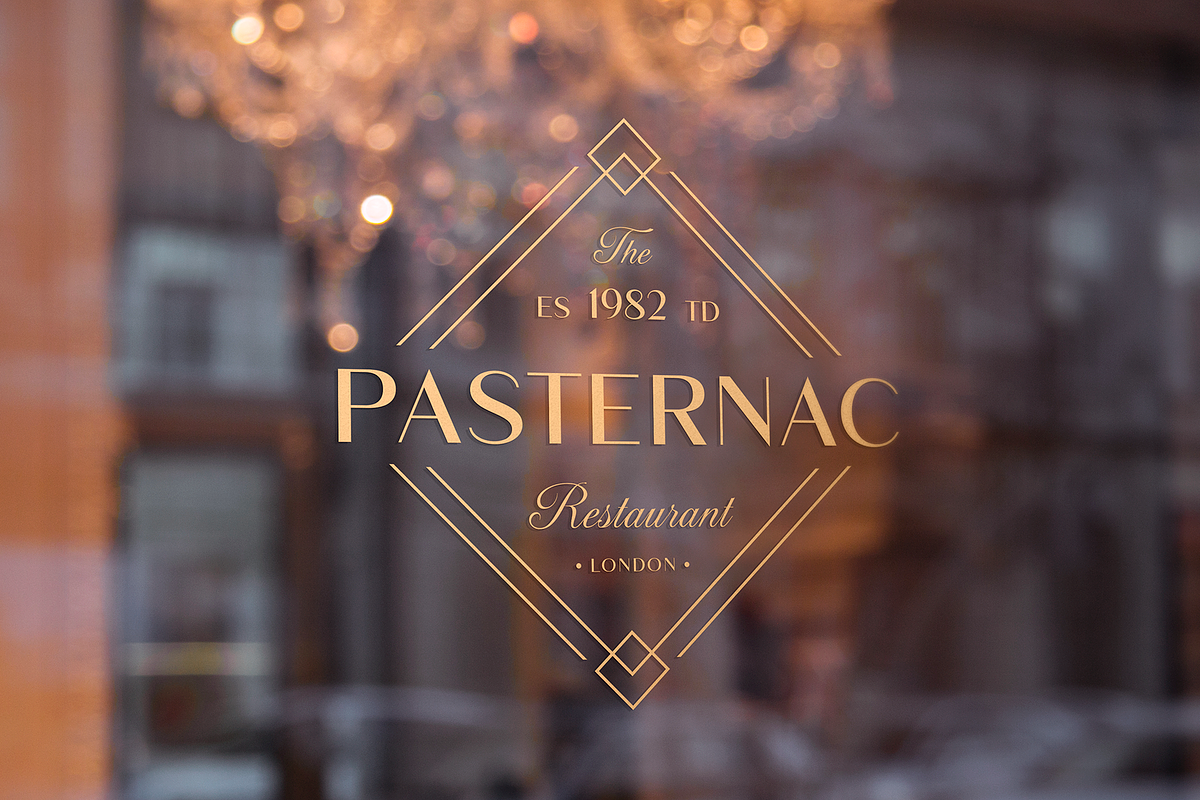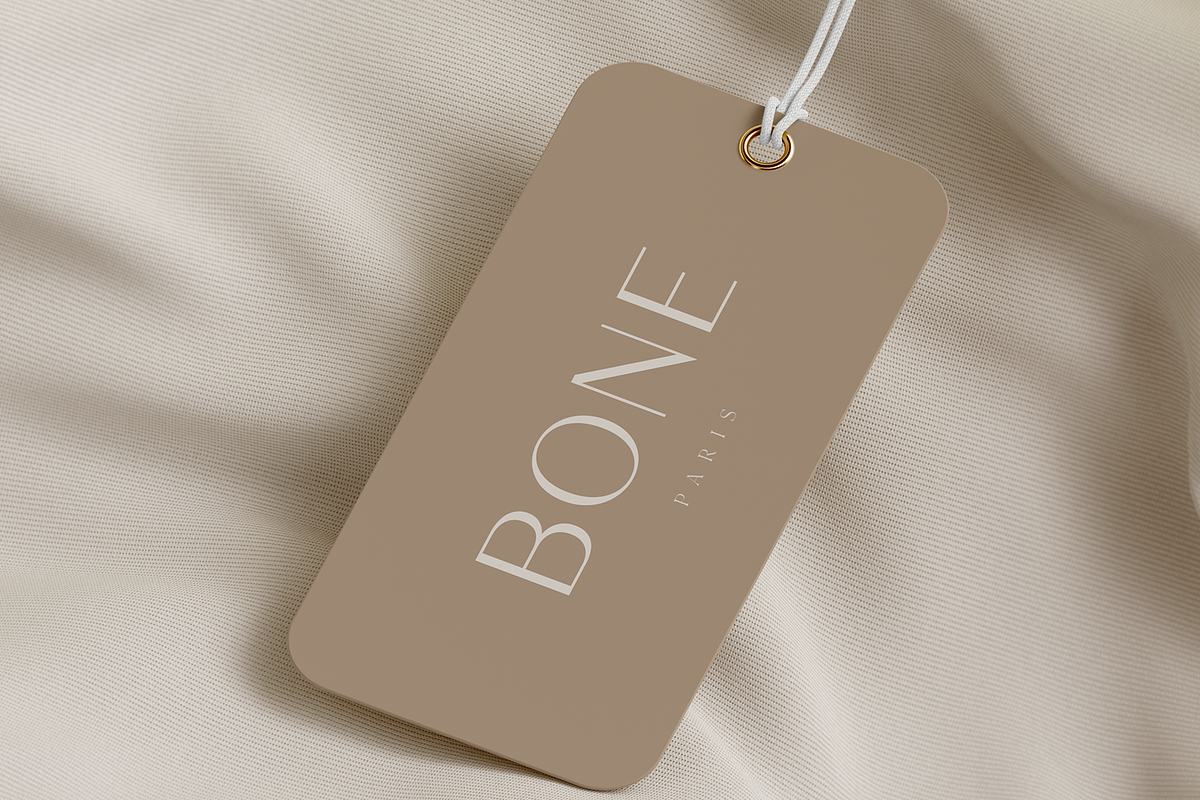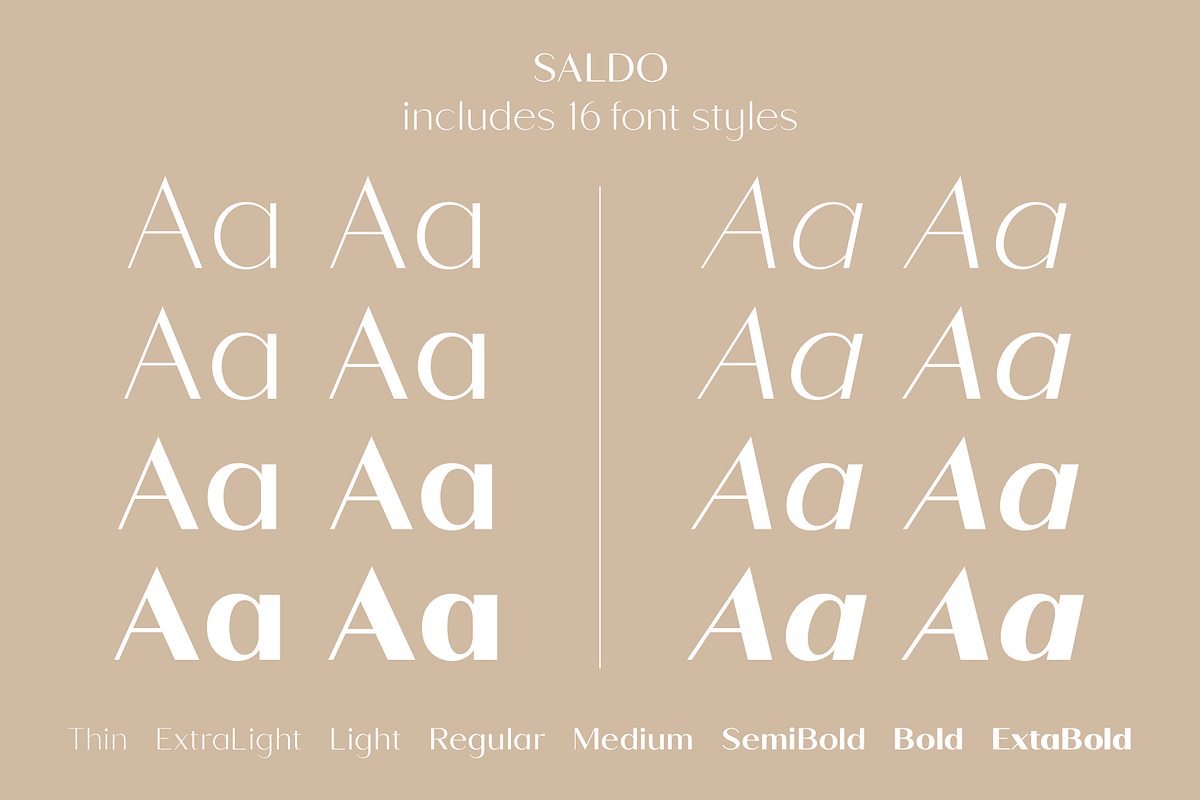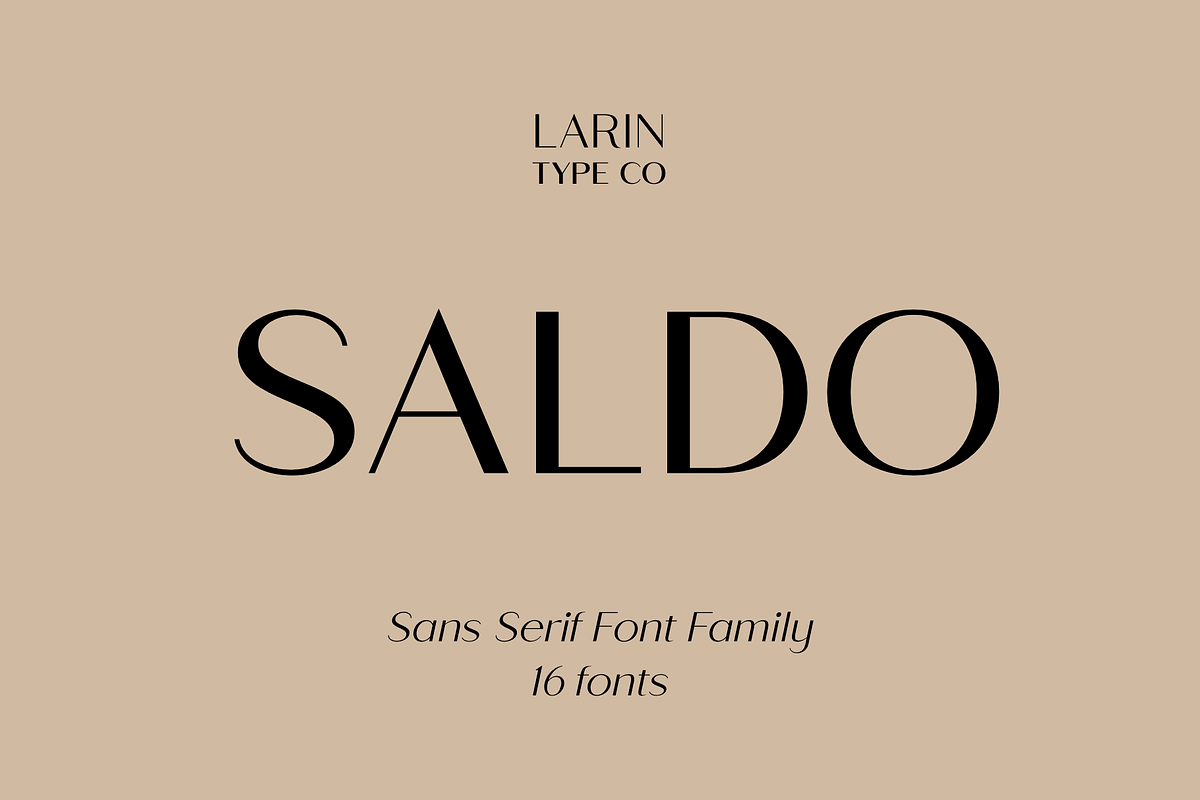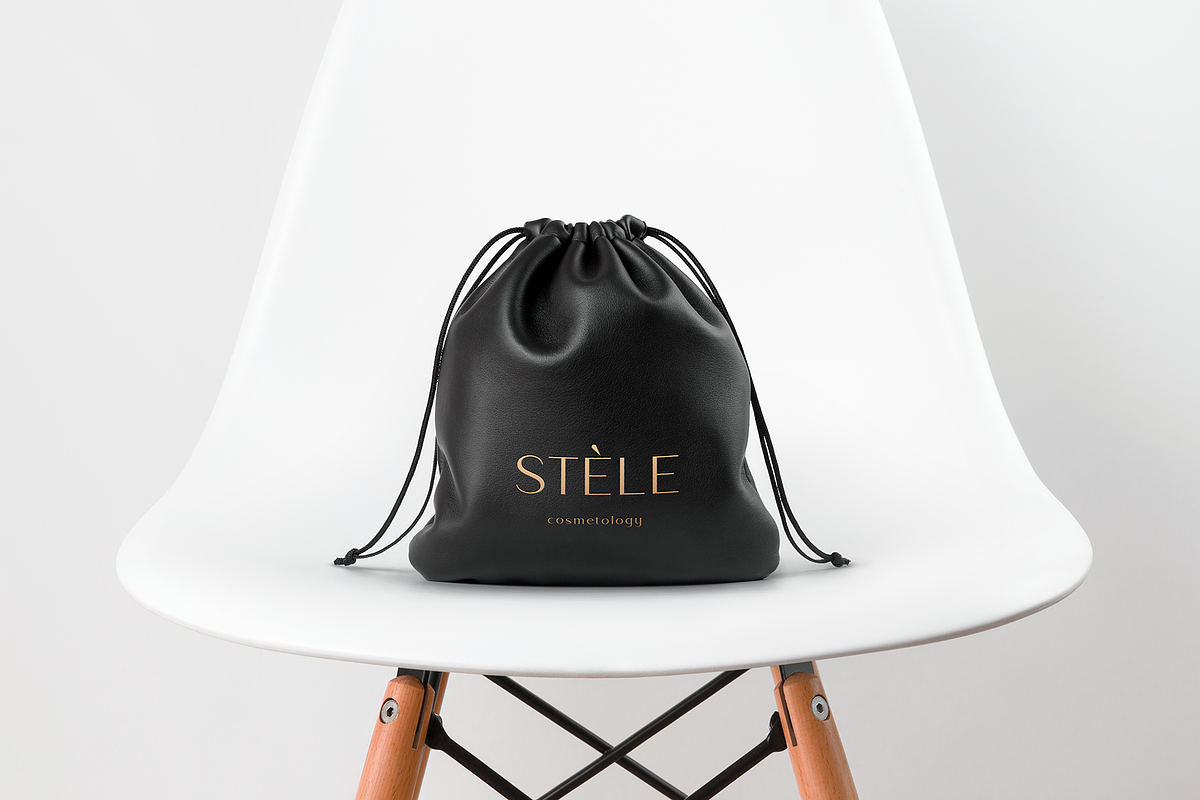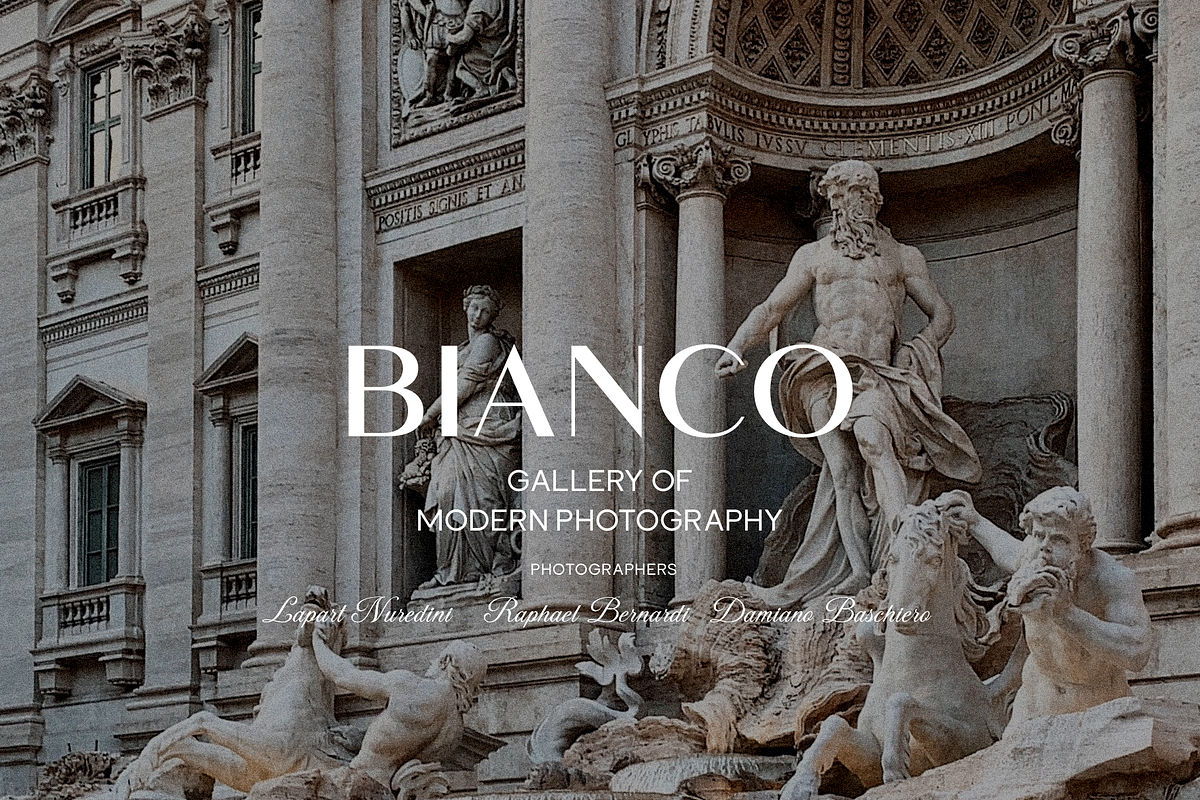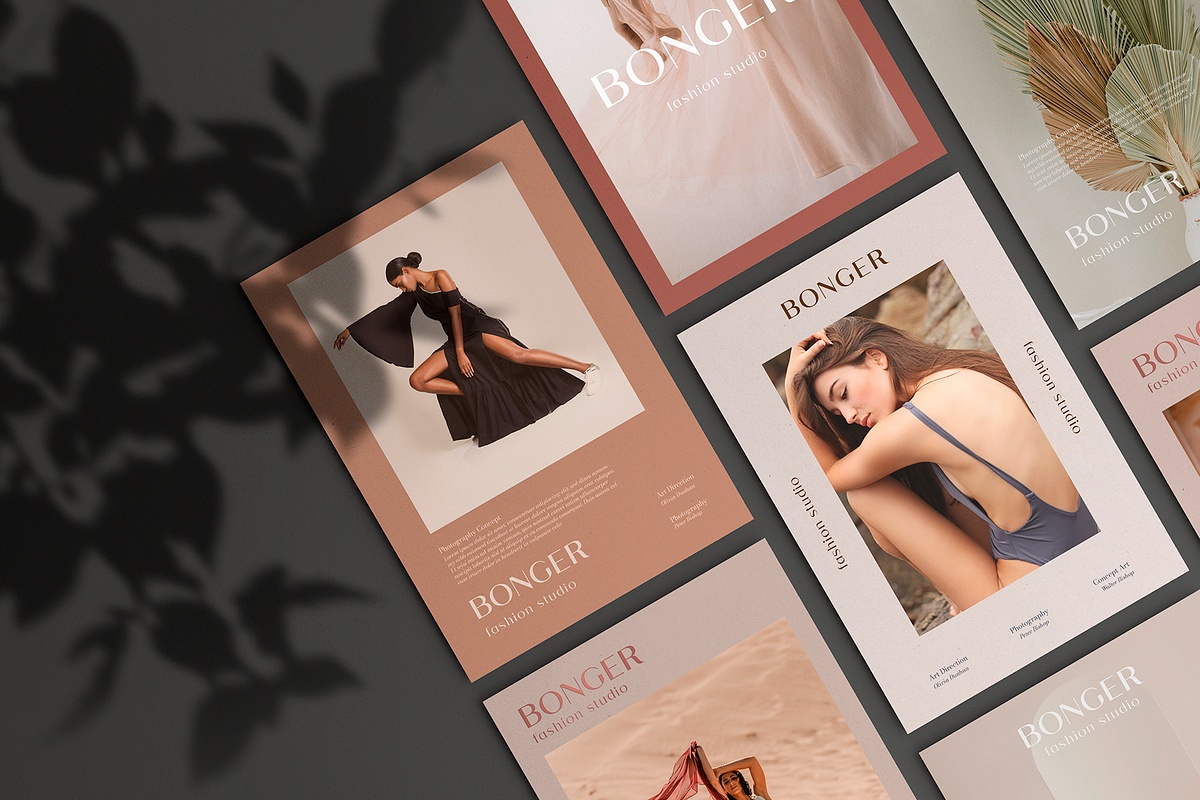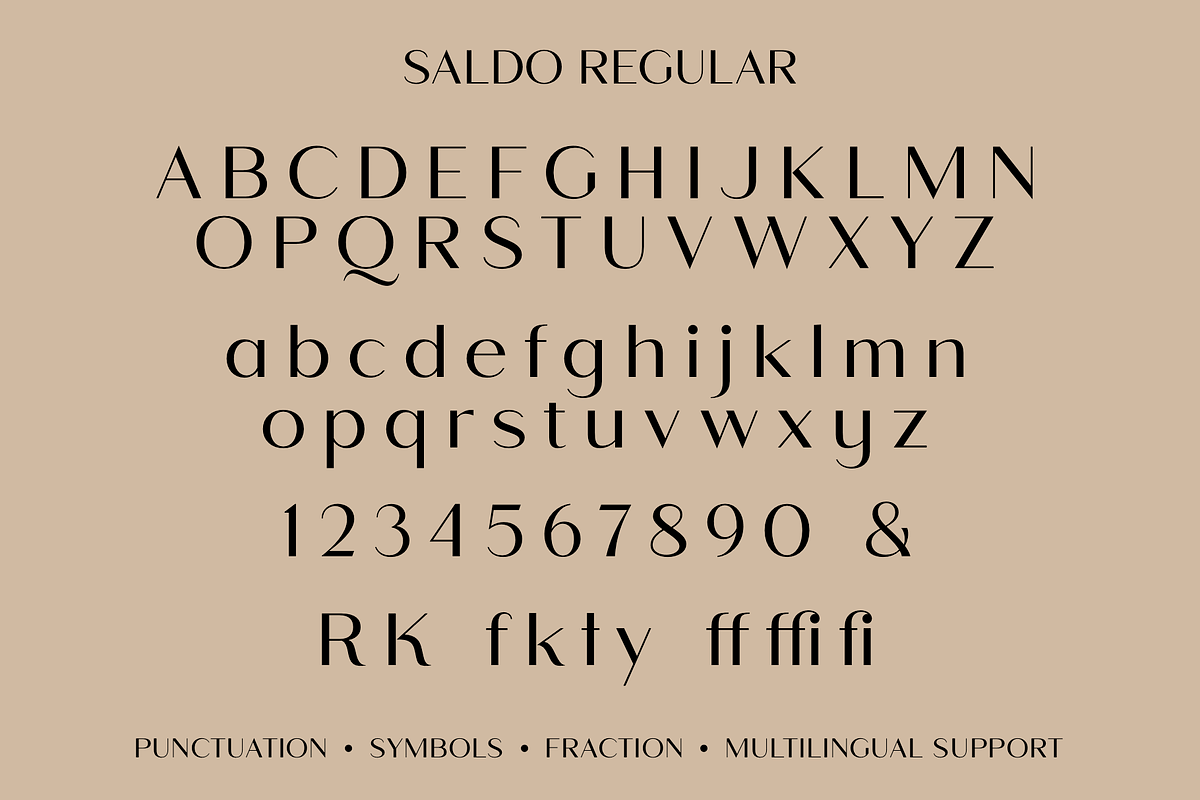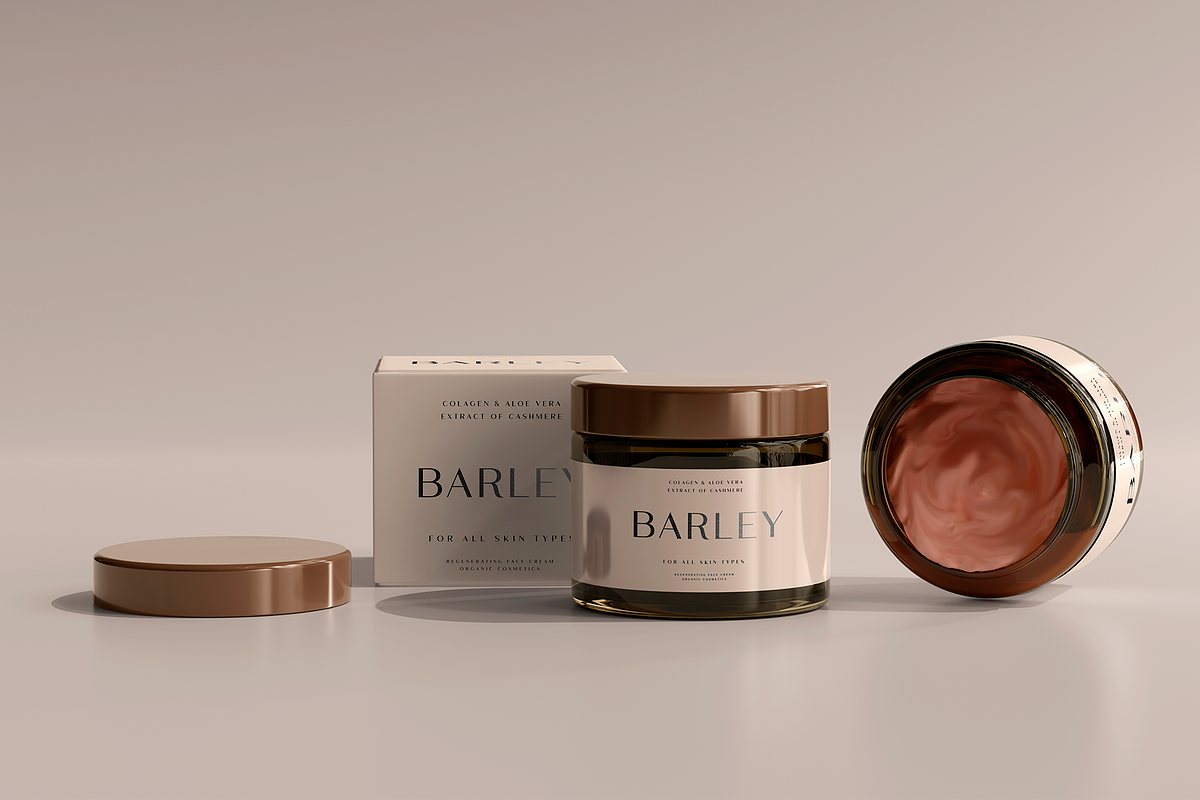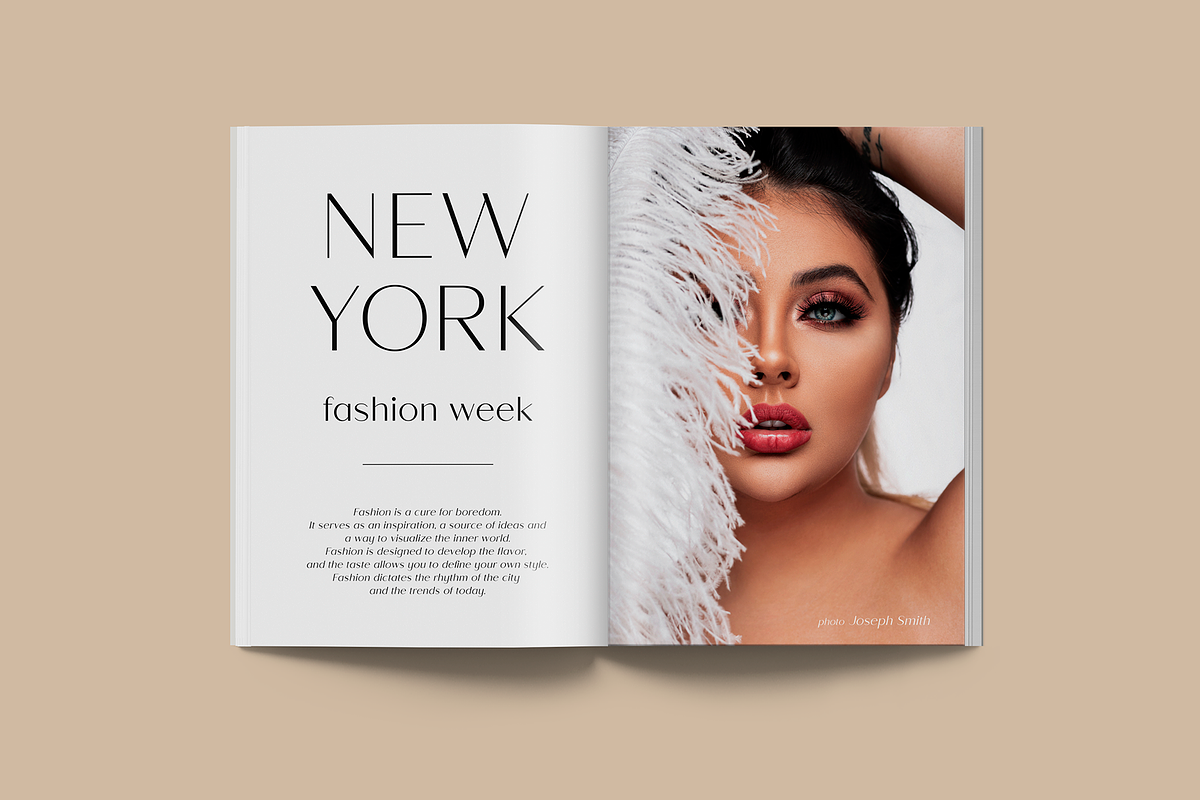
Saldo | Font Family
Saldo is an elegant, modern and contrast sans-serif font family, and a great fashionable solution for your project. It includes upright and Italic style, each of them has eight weights from thin to extabold. This is a multi-purpose font that is perfect for fashion project, it is contrasted, modern and easy to read. With it, you can create logos, banners, use in advertising, packaging, book covers and magazines, headings, descriptions and much more.
Following international symbols support: ÀÁÂÃÄÅĄÇĆÈÉÊËĘÌÍÎÏÐÑŃŁÒÓÔÕÖØÙÚÛÜŚŠŸÝŹŻŽßàáâãäåçèéêëìíîïðñòóôõöøùúûüýÿąćęłńśšźżž
Full alphabet with Uppercase and Lowercase A-z
Alternates for uppercase "R, K"
Alternates for lowercase "f, k, t, y"
Ligatures "ff, fi, ffi"
Numbers, fractions
Punctuation and symbols